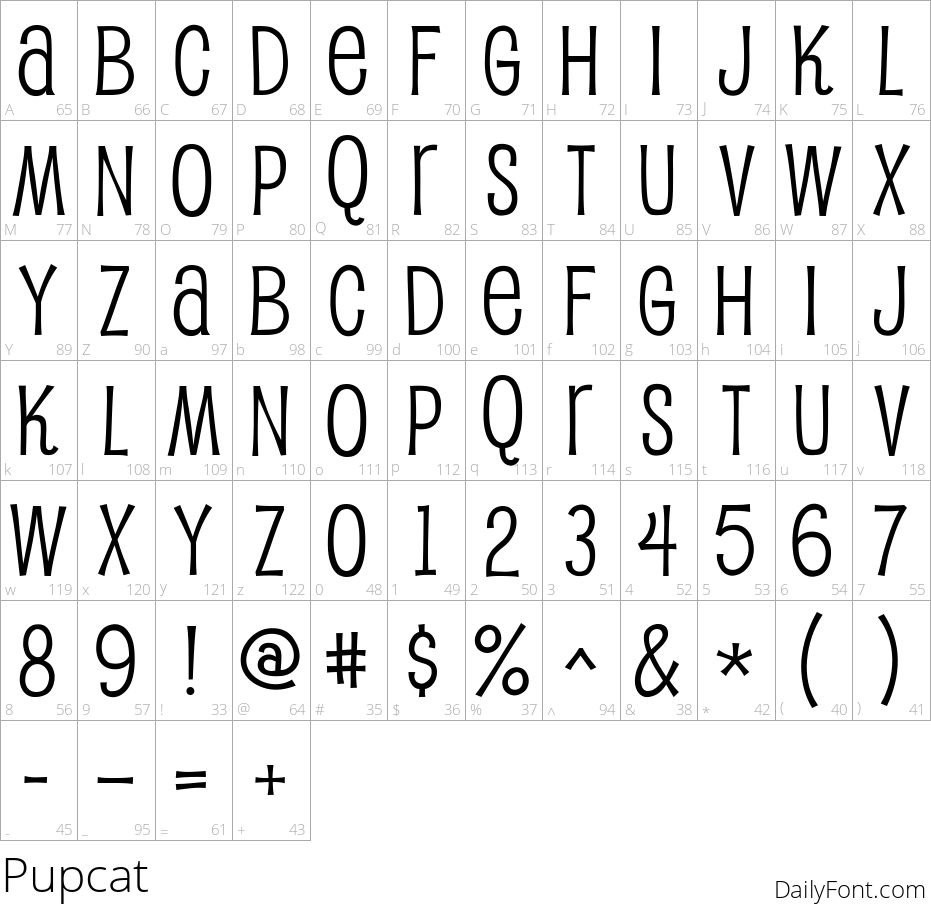
Pupcat
Simple, clean thin sans for understated everyday text
Pupcat keeps things simple: thin strokes, a narrow width, and no decoration, making it a quiet, elegant workhorse rather than a display face. It reads clearly at small sizes without calling attention to itself.